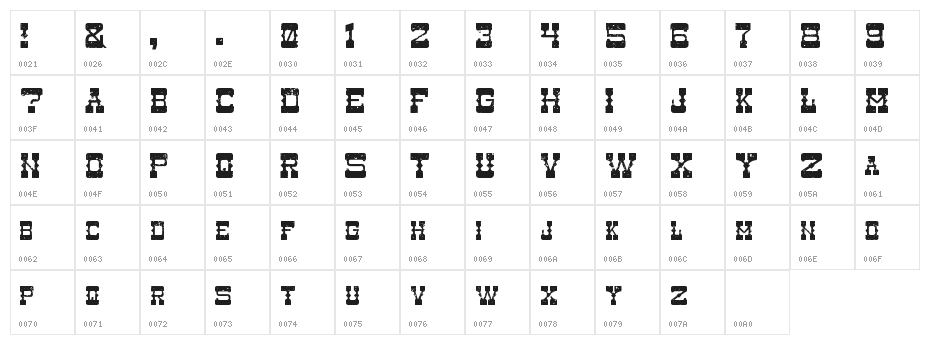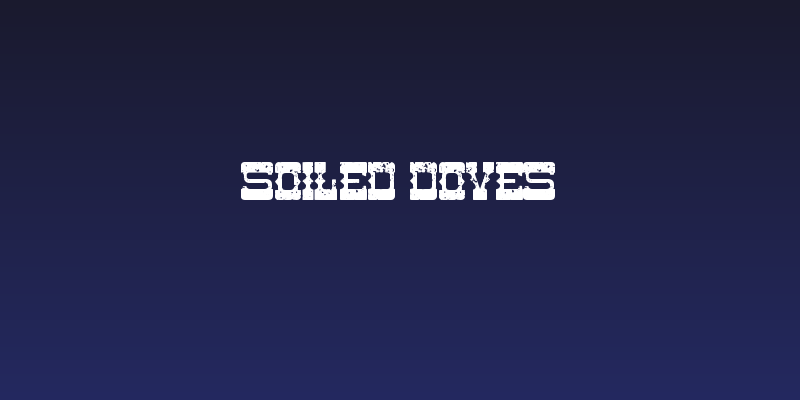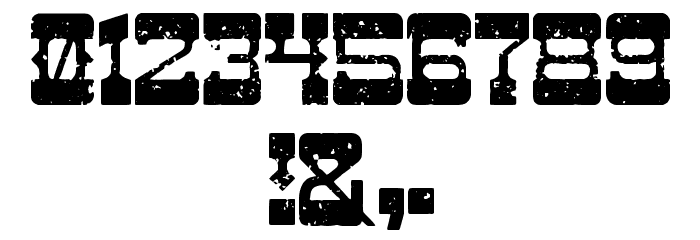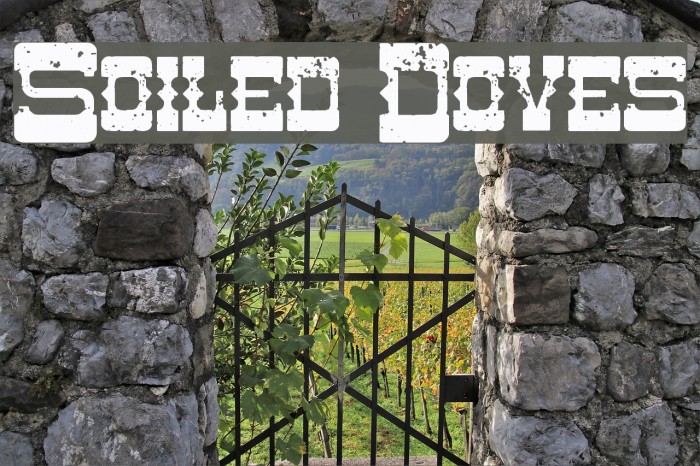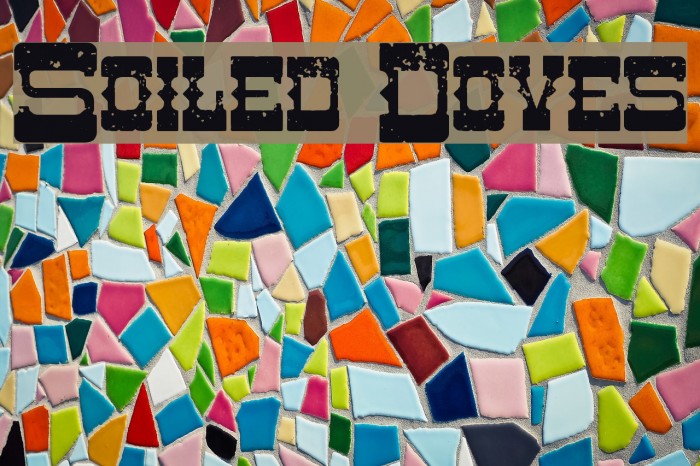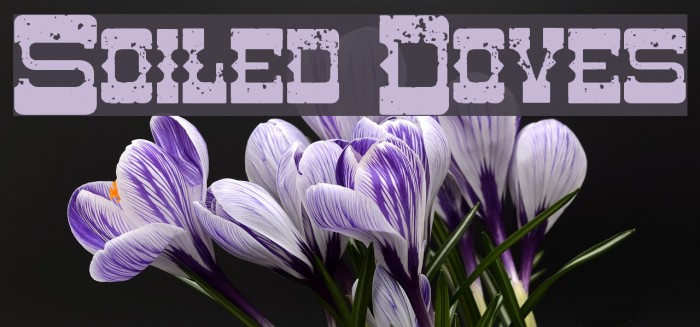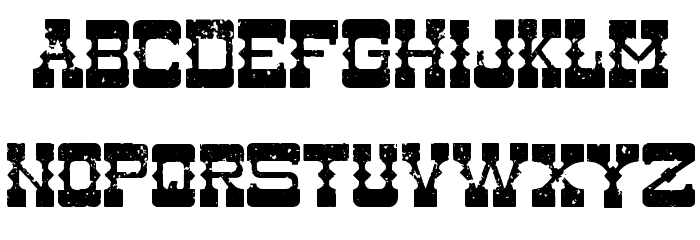
Soiled Doves Font
Soiled Doves Description
This font features a bold and distressed style, characterized by its rough, textured appearance that gives it a rugged and worn look. The uppercase and lowercase letters, along with numbers and special characters, all exhibit a consistent pattern of erosion and weathering, making it ideal for designs that require a vintage or grunge aesthetic. The boldness of the characters ensures high visibility, while the distressed details add a layer of depth and interest. This font is particularly suitable for projects that aim to convey a sense of history or edginess, such as posters, album covers, or themed event invitations.
| Proposed Projects | Ideal for posters, album covers, themed event invitations, and any design requiring a vintage or grunge aesthetic. |